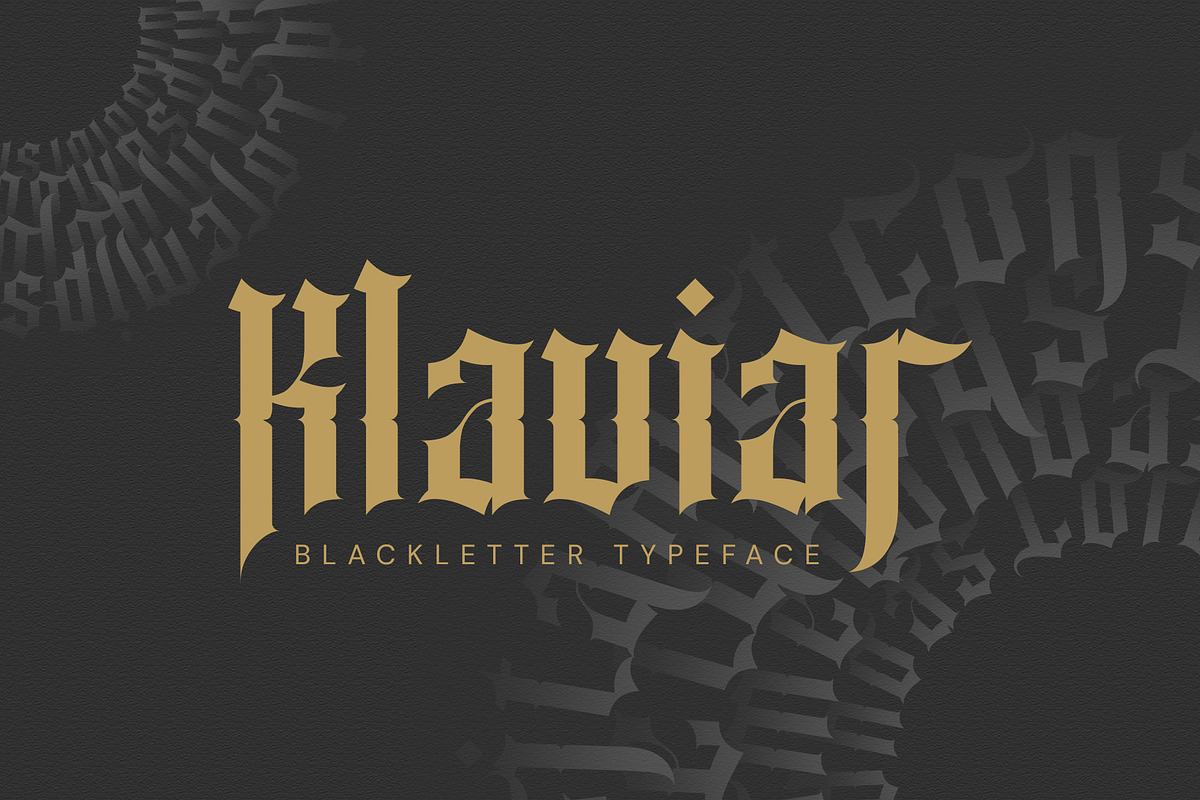
Klaviar Blackletter Font Free Download is a bold and dramatic typeface inspired by traditional Gothic calligraphy. Featuring sharp angles, ornate strokes, and a strong medieval aesthetic, Klaviar is perfect for projects that need a sense of heritage, authority, or edge. Ideal for band logos, tattoo designs, posters, and branding that demands attention, this font delivers a unique presence.
Its intricate letterforms pay homage to classic blackletter styles while maintaining modern readability. Whether you're designing for streetwear, heavy metal covers, or vintage-inspired branding, Klaviar adds historical weight and visual impact.
Let Klaviar inject gothic flair and artistic intensity into your next design.